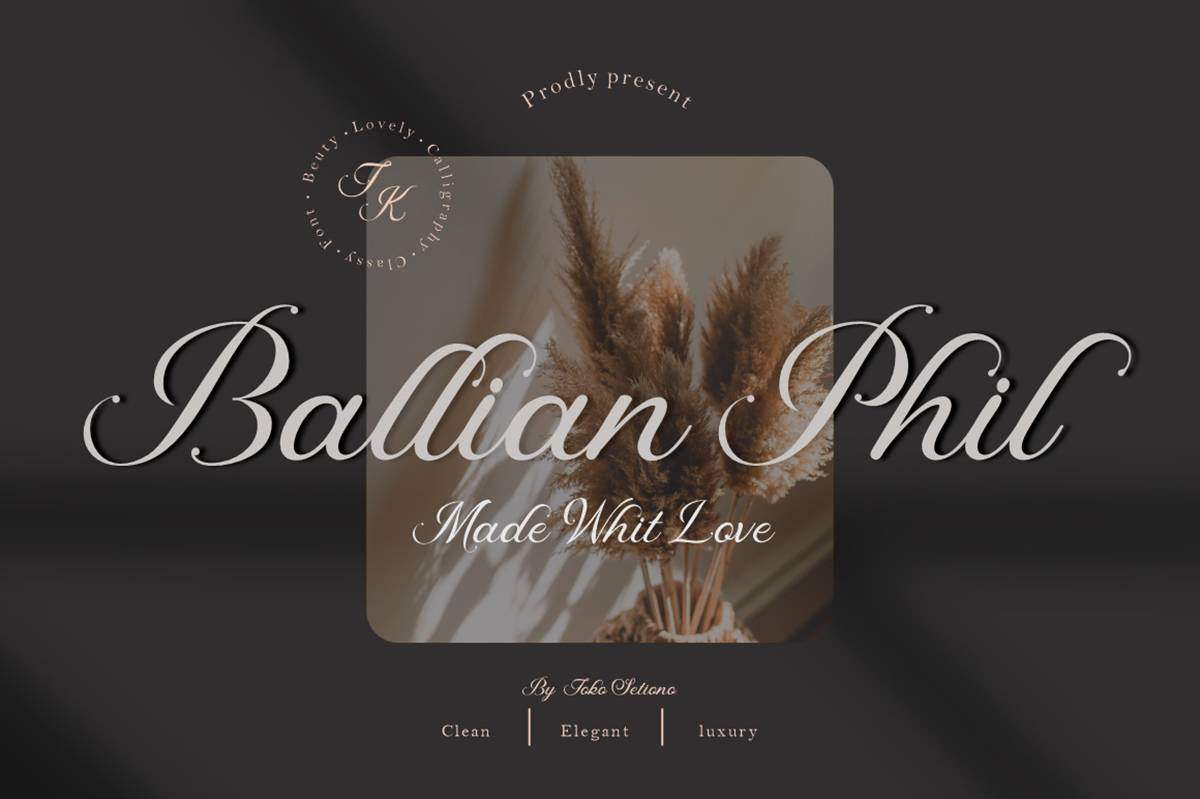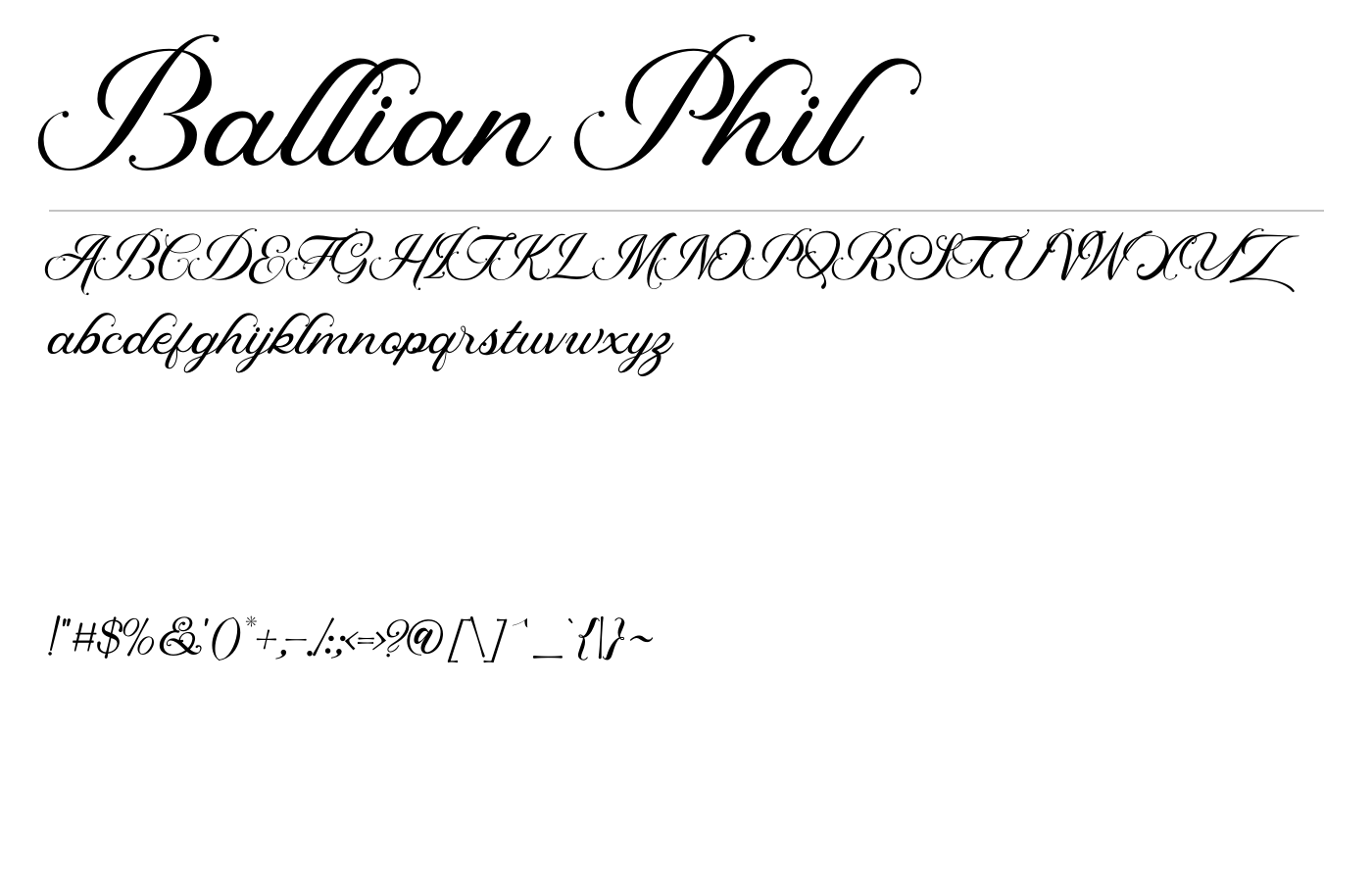
Ballian Phil is an elegant script font with graceful, flowing strokes that evoke a sense of sophistication and refinement. Its delicate, high-contrast letterforms and ornate flourishes make it ideal for luxury branding, wedding invitations, and upscale editorial projects where a classic, timeless feel is desired. This font shines in large sizes where its detailed calligraphic style can truly stand out.
Ballian Phil Font
About Ballian Phil Font